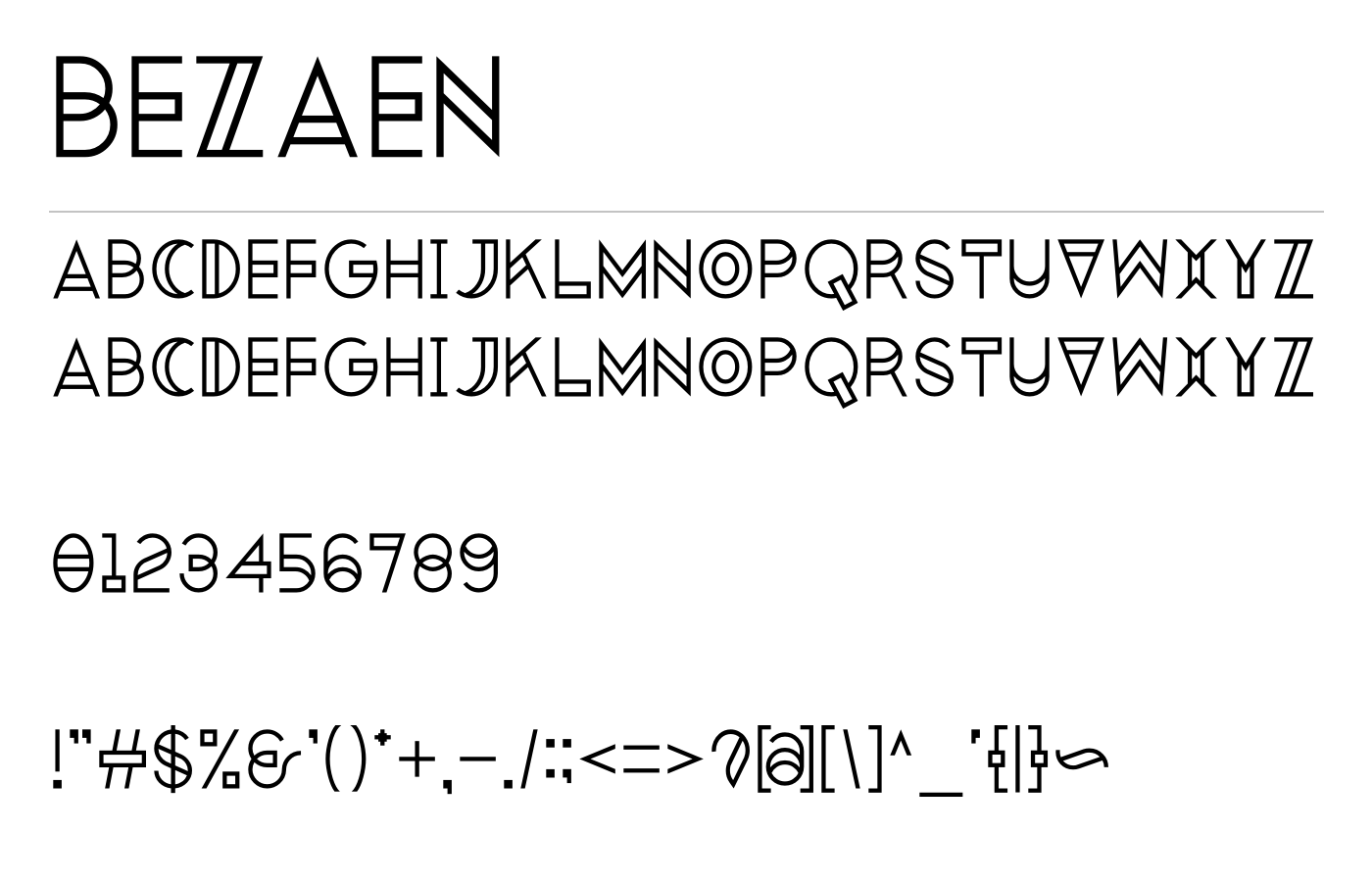
Bezaen is a distinct sans serif font featuring a modern, geometric style with thin, clean lines and subtle stroke contrast. Its uppercase-only design showcases unique, angular letterforms that bring a creative, artistic vibe ideal for contemporary branding, headlines, and display use. This font works well where a modern, stylish, and slightly futuristic impression is desired, such as in fashion, editorial layouts, and innovative logo design.
Bezaen Font